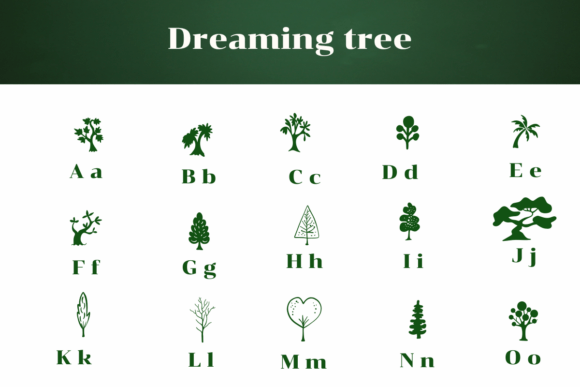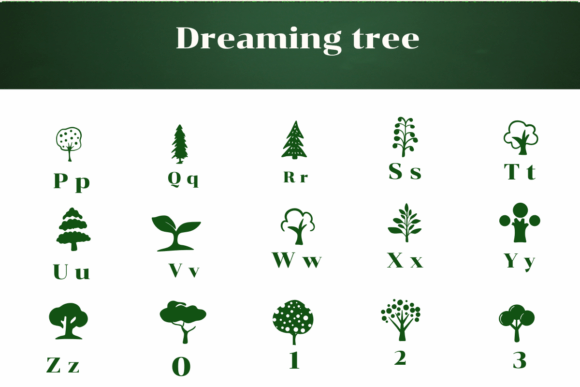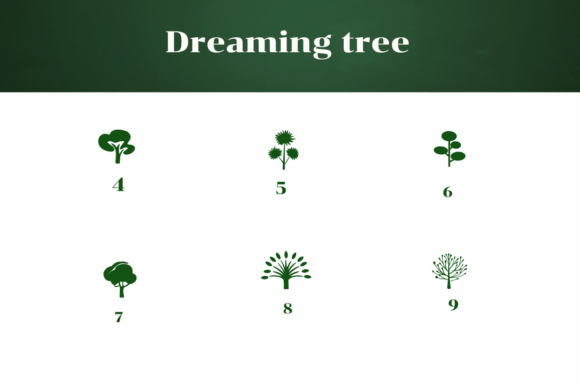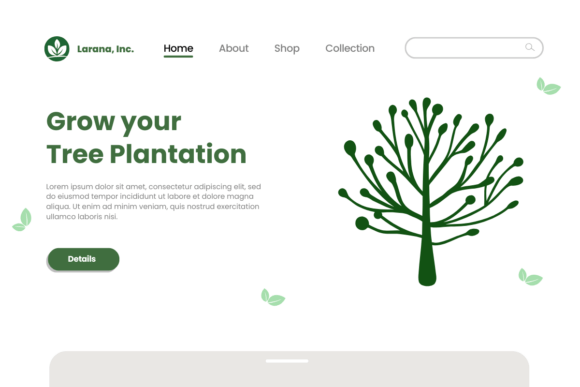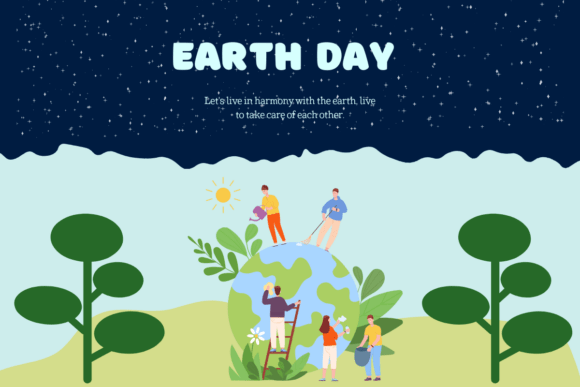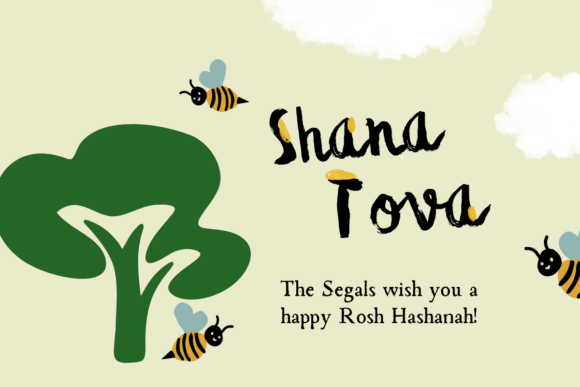
The Dreaming Tree Font: A Natural Wonder for Your Creative Projects
I still remember the time I was working on a wedding invitation project, and I just couldn’t find the right font to capture the whimsical, outdoor theme my client was looking for. I scoured the internet, tried out dozens of fonts, but nothing seemed quite right. That was until I stumbled upon the Dreaming Tree font. It was like a breath of fresh air – a beautiful, dingbats font with a natural theme that instantly elevated my design.
So, what makes the Dreaming Tree font so special? Here are a few things I absolutely love:
- ✨ Unique and quirky design elements, perfect for adding a touch of personality to your projects
- ✅ Extensive character set, including OpenType features and glyphs
- 🌿 A natural, outdoorsy theme that’s perfect for projects like wedding invitations, DIY crafts, and decorations
Of course, no font is perfect, and there are a few small quirks to be aware of:
- 🤔 Some characters may not work well at very small font sizes
- ⚠️ Limited support for non-English languages
The Story Behind Dreaming Tree
So, what’s the story behind the Dreaming Tree font? While I couldn’t find any definitive information on the font’s origins, I like to imagine that it was created by a designer who spent countless hours surrounded by nature, inspired by the beauty of the natural world. Perhaps they wanted to capture the whimsy and wonder of a forest, with all its twists and turns, in a font that would bring joy to designers and crafters alike.
| What type of projects is Dreaming Tree best suited for? | Dreaming Tree is perfect for creative projects like wedding invitations, DIY crafts, decorations, logos, and more. |